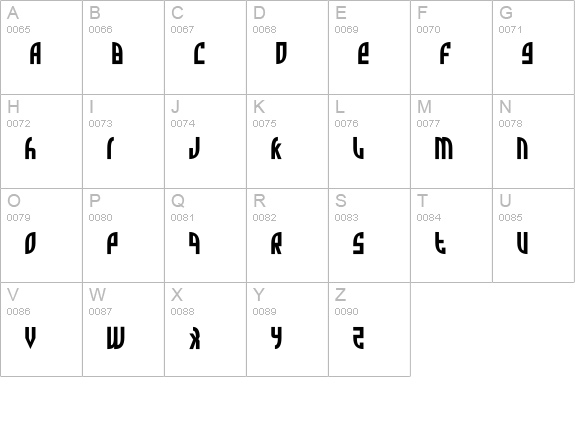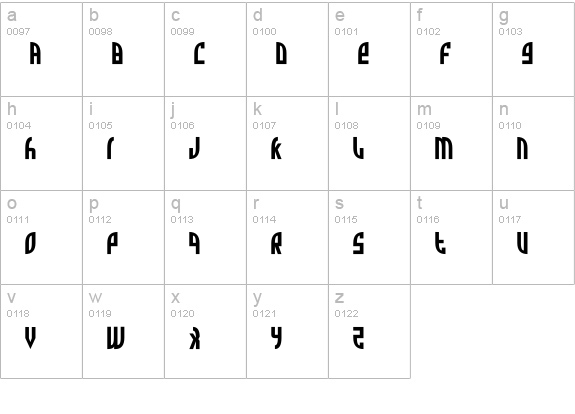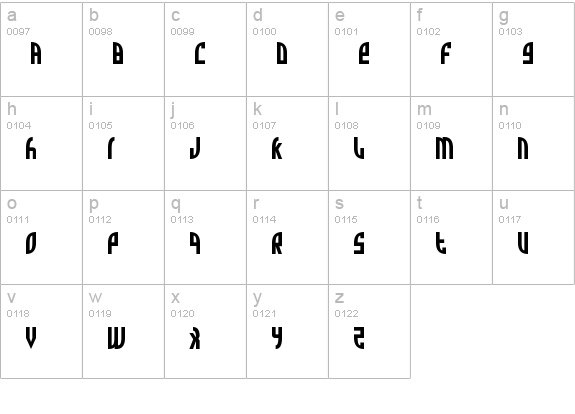
Zone Rider font is a sleek and modern typeface that exudes a sense of speed and dynamism. With its sharp angles and futuristic design, this font is perfect for projects that require a bold and edgy look. Whether you're creating posters, logos, or website headers, Zone Rider will make your text stand out and grab attention. What's even better is that Zone Rider font is completely free to download at FontsMarket.com. So you can add this unique font to your collection without having to spend a dime. Don't miss out on the opportunity to elevate your designs with the striking style of Zone Rider font. Download it now and start creating eye-catching visuals that leave a lasting impression.